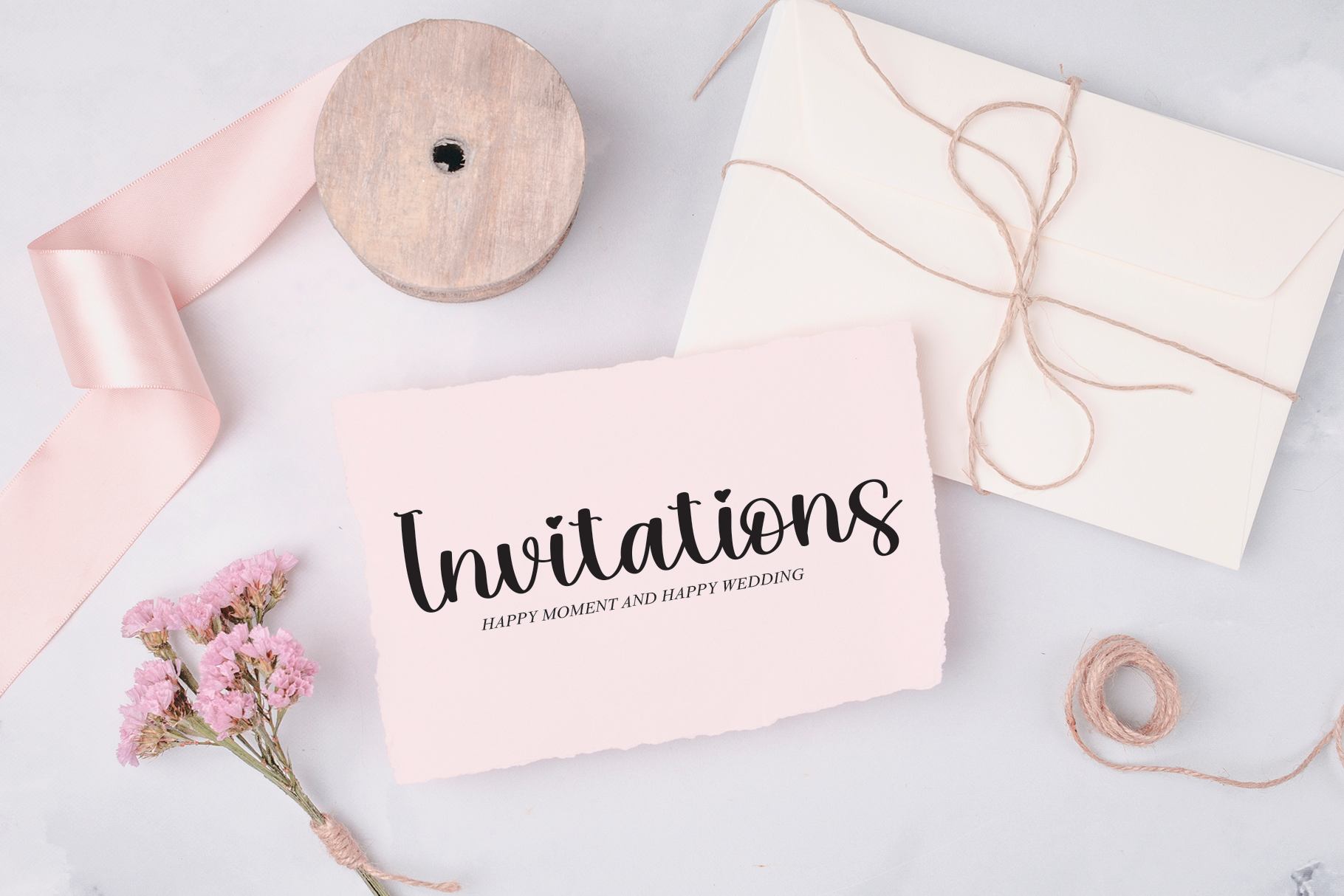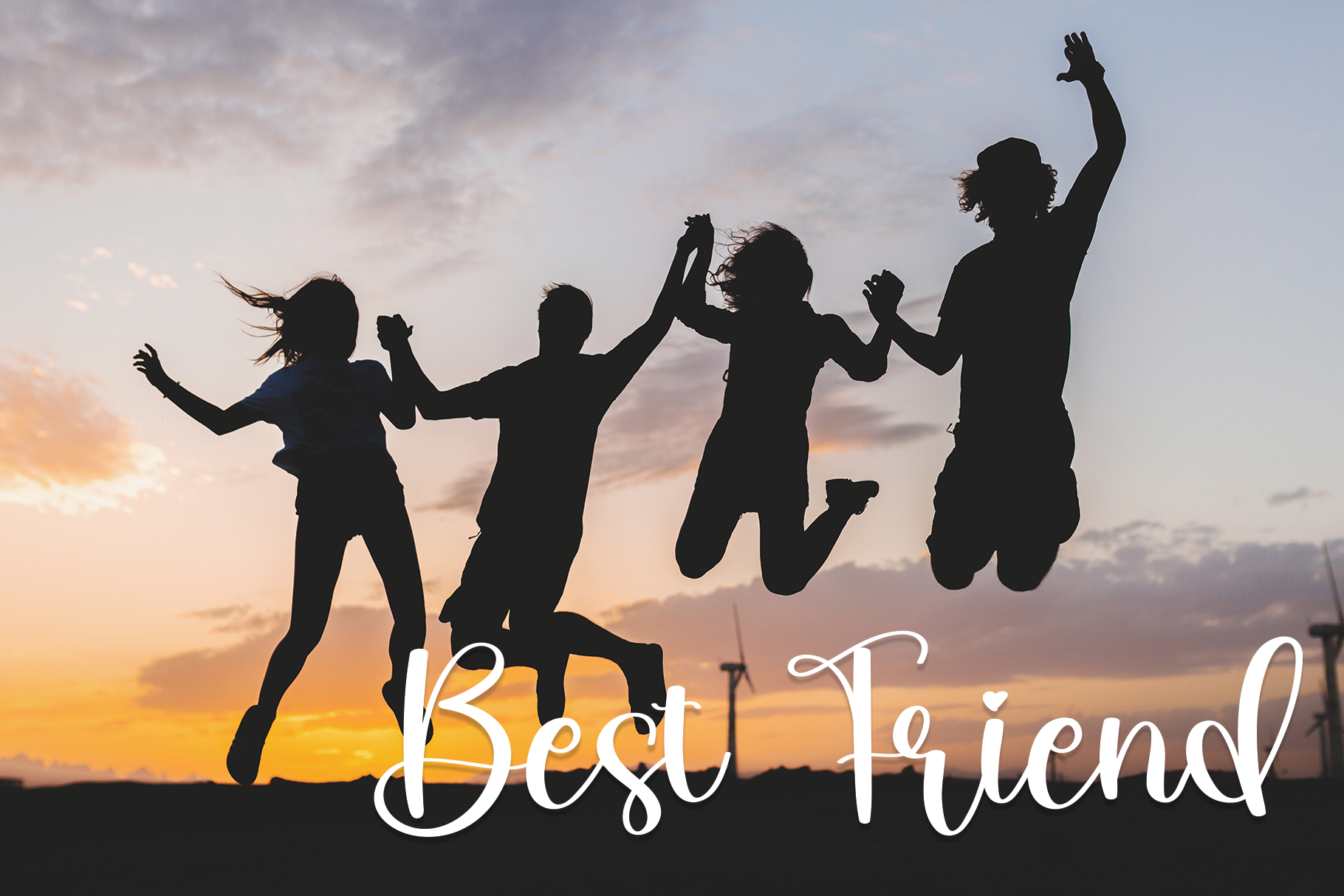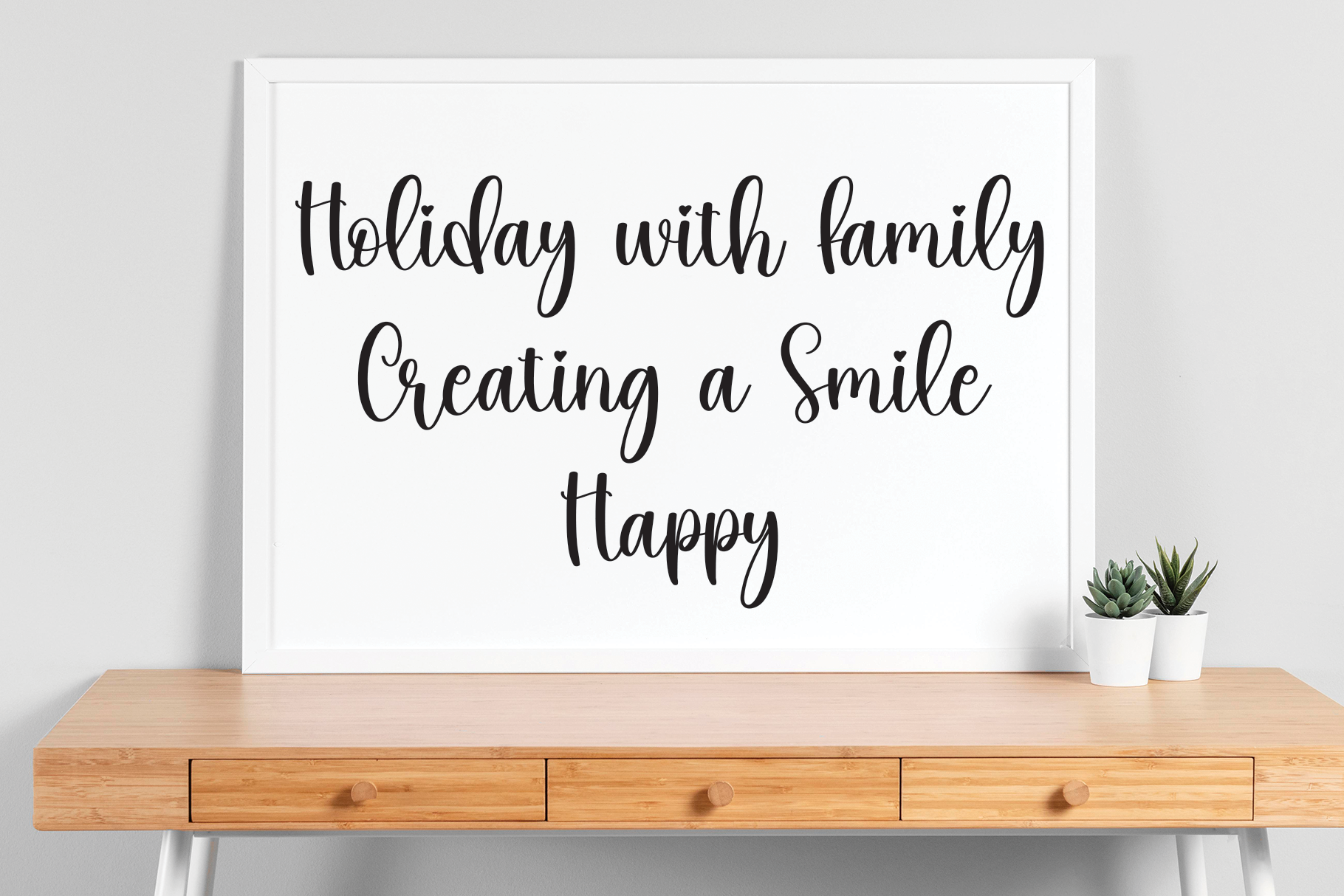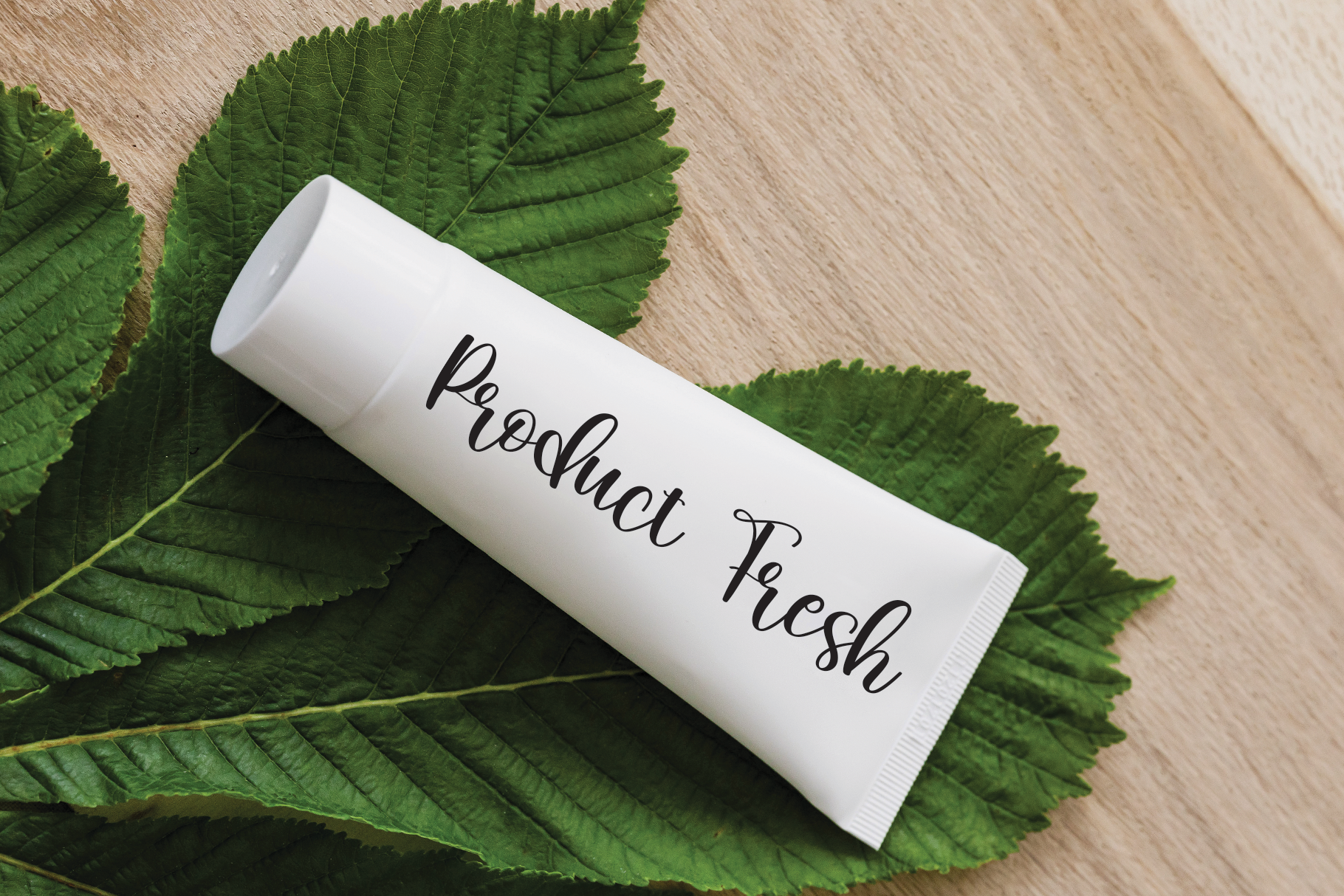
Bemonade Font
Bemonade Script Font
It’s a flowing handwritten font, described by an elegant touch, perfect for your favorite projects. Fall in love with its incredibly distinct and timeless style and use it to create spectacular designs!
the latest style letters are perfect for wall displays, wedding invitations, social media post logos, advertisements, product packaging, product designs, labels, photography, watermarks, invitations, stationery, and any project that requires taste handwriting.